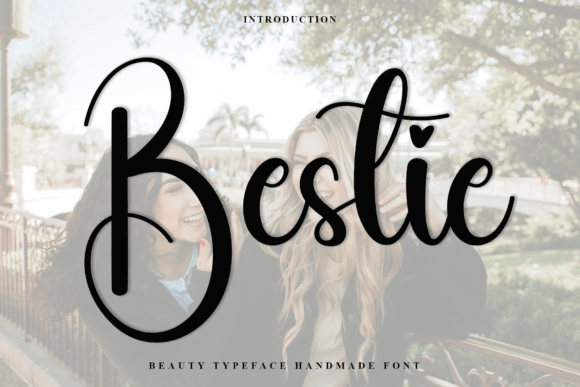
The Bestie Font: Elevate Your Designs with Elegance and Charm
Bestie is a stylish handwritten script font that exudes elegance and charm with its flowing, graceful curves. Perfect for invitations, logos, and branding, it adds a personal and sophisticated touch to any design. The font’s delicate strokes bring warmth and creativity to your projects, making it an excellent choice for designers, crafters, and creative hobbyists alike.
- ✨ Elegant and flowing script that adds a touch of sophistication to any design
- ✅ Perfect for invitations, logos, and branding projects
- 💫 Delicate strokes that bring warmth and creativity to your projects
- 🎨 Highly versatile and can be used for a variety of design projects
While Bestie is an amazing font, there are a few things to keep in mind: 🤔
- ⚠️ Some letters may require manual kerning for optimal spacing
- ⚠️ May not be suitable for very large or very small font sizes
- Take advantage of OpenType features, such as glyphs and stylistic alternates, to add more personality to your text
Exploring OpenType Features
One of the best things about Bestie is its OpenType features, which allow you to customize your text in a variety of ways. Here are a few tips for getting the most out of Bestie’s OpenType features:
- Experiment with glyphs: Bestie comes with a range of glyphs, including alternate letters, numbers, and punctuation marks. Use these to add more personality to your text and create a unique look.
- Try stylistic alternates: Bestie also comes with stylistic alternates, which allow you to swap out certain letters or words for alternate versions. This can be a great way to add more visual interest to your text.
The Story Behind Bestie
Bestie was designed with one goal in mind: to create a font that would add a touch of elegance and charm to any design. The designer, a lover of handwritten scripts and elegant typography, set out to create a font that would be both stylish and versatile. After months of work, Bestie was born – a beautiful, flowing script font that’s perfect for invitations, logos, and branding projects.
Q: Is Bestie a difficult font to read?
A: No, Bestie is designed to be highly legible, even at smaller font sizes. However, as with any script font, it’s best to use it in moderation and avoid overusing it in long blocks of text.